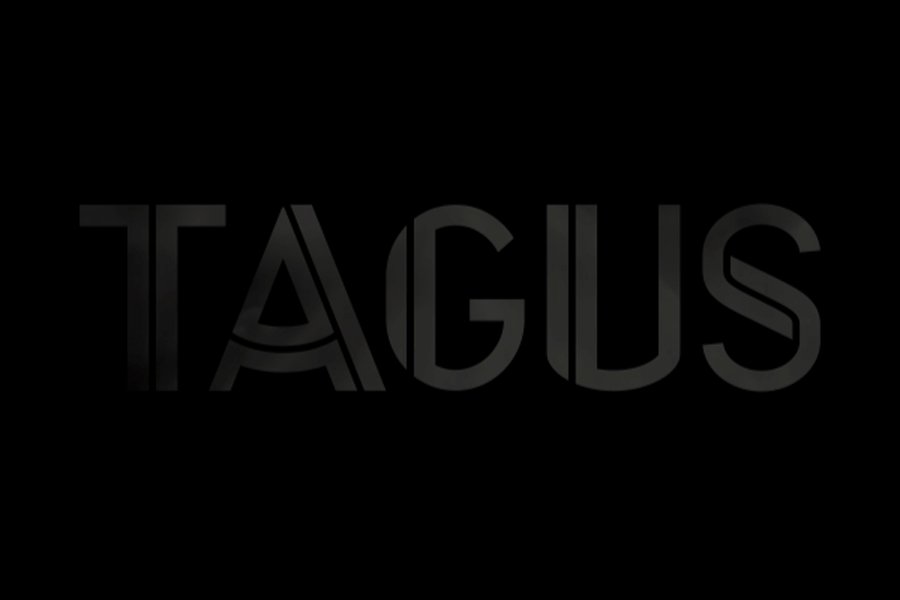
Tagus Font
Introducing to a Tagus Display Free Typeface, Tagus designed and shared by Pedro Azedo. Tagus is inspired in two font (Azedo and Kanji)
Tagus only include capital letters, is designed in geometric inspiration, with bold lines and aligns very scientific, it is designed by hands, and neatly edited. You can use it for work purposes.